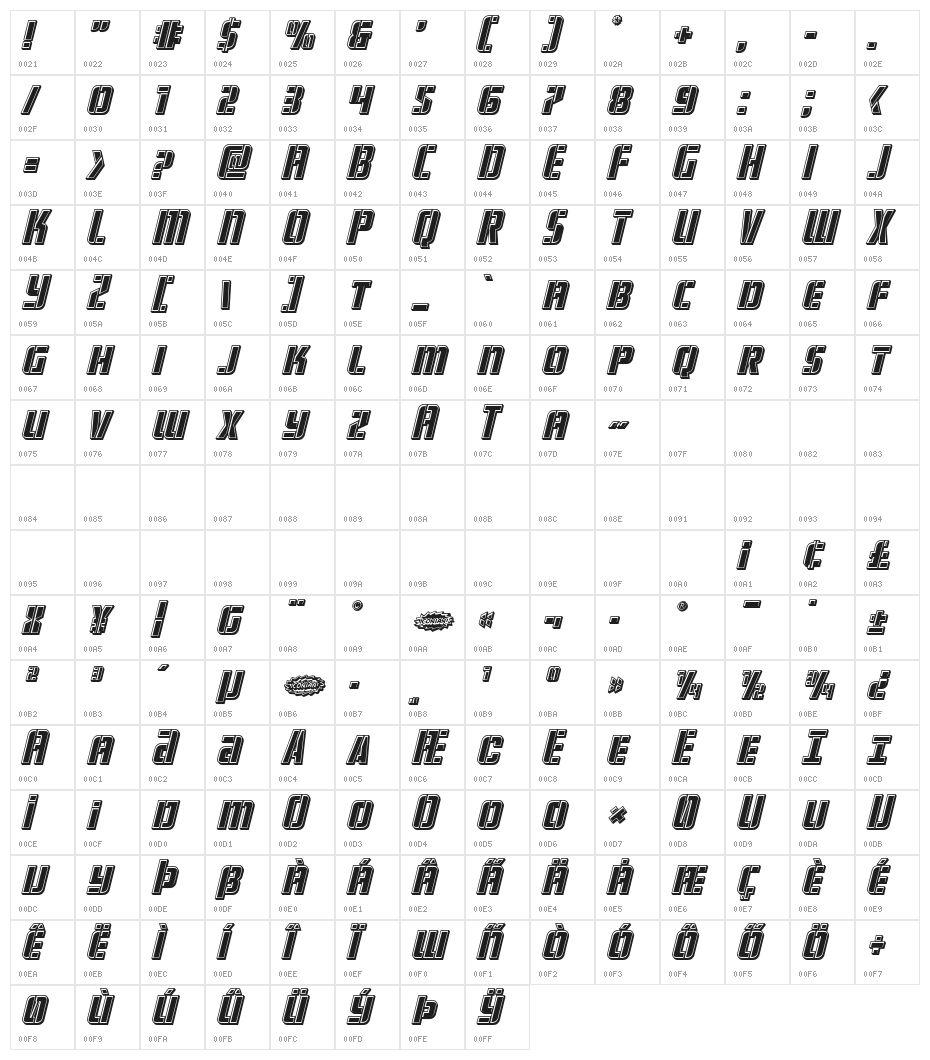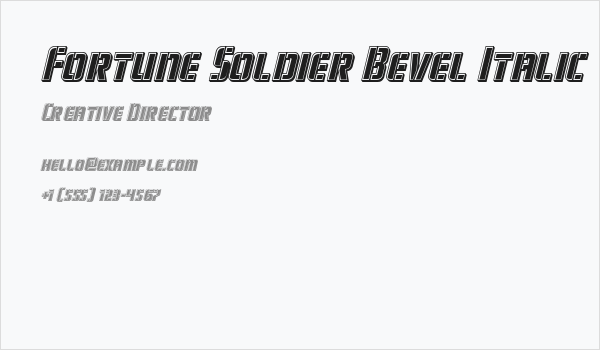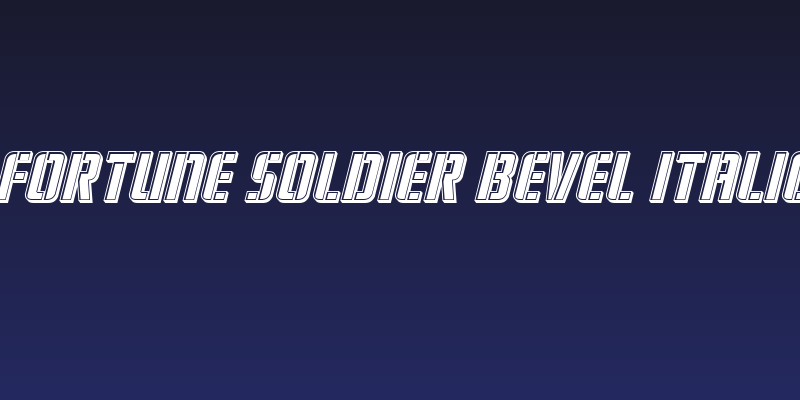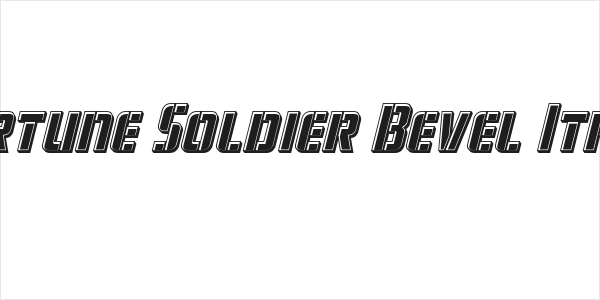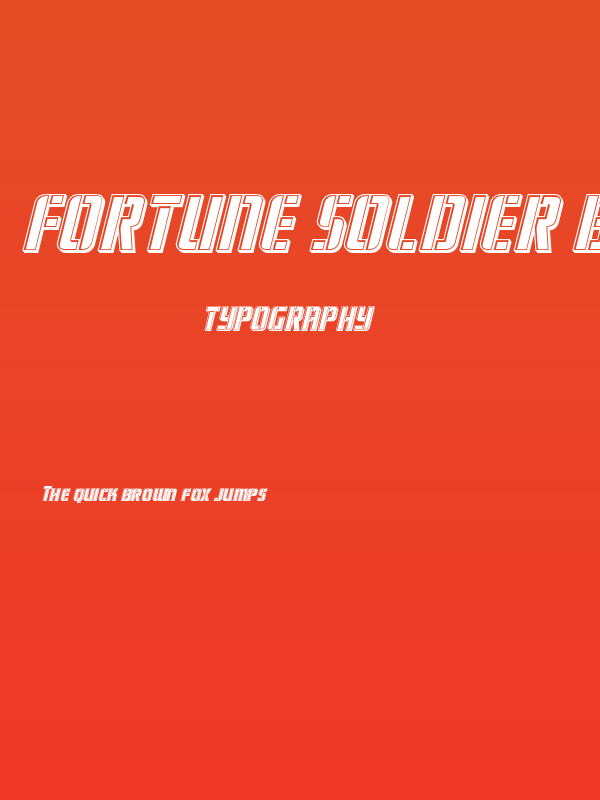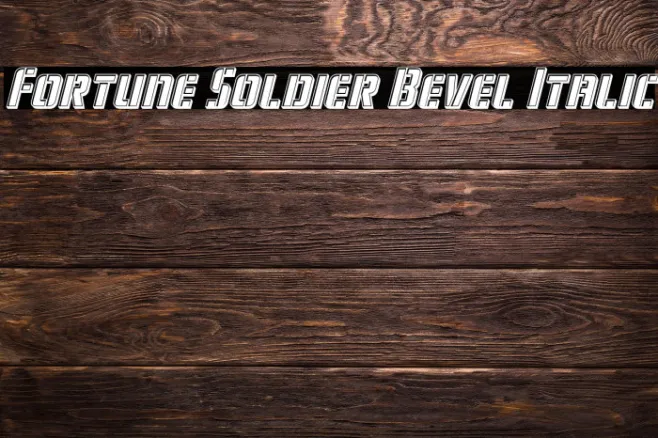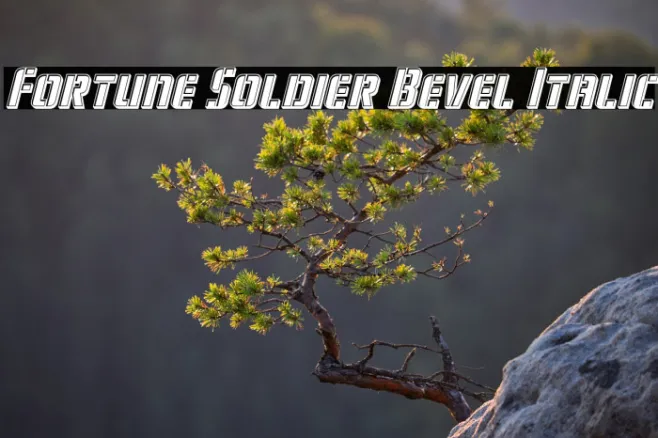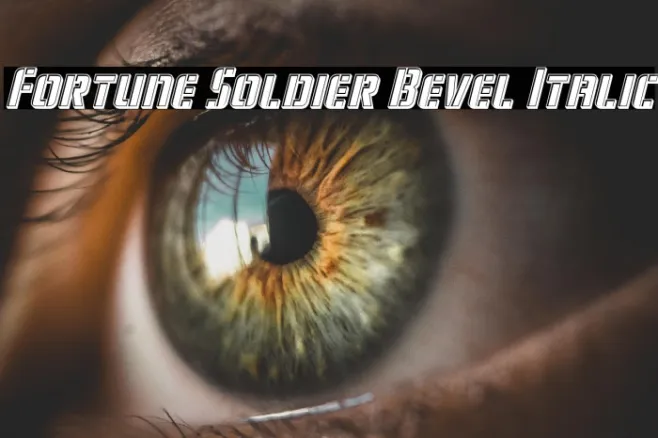
Fortune Soldier Bevel Italic Font
Fortune Soldier Bevel Italic Description
This font features a bold, italicized style with a distinct bevel effect that gives it a three-dimensional appearance. The characters are uppercase and lowercase, with numerals and a selection of special characters. The design is highly decorative, making it stand out with its thick strokes and shadowed edges. The italic slant adds a dynamic feel, while the beveling provides depth and a sense of movement. This font is ideal for projects that require a strong visual impact and a modern, edgy look.
| Proposed Projects | Ideal for posters, logos, video game graphics, and branding materials that require a bold statement. |